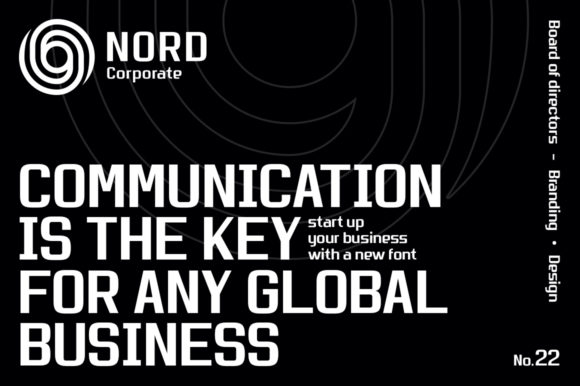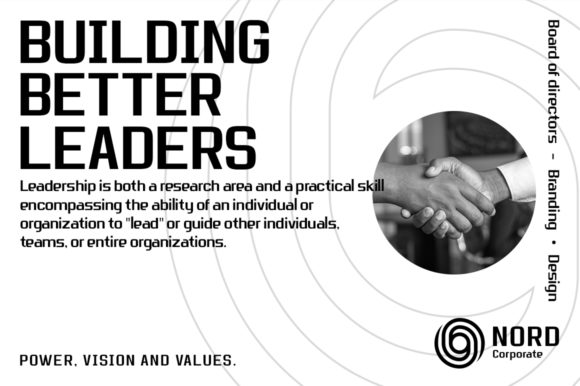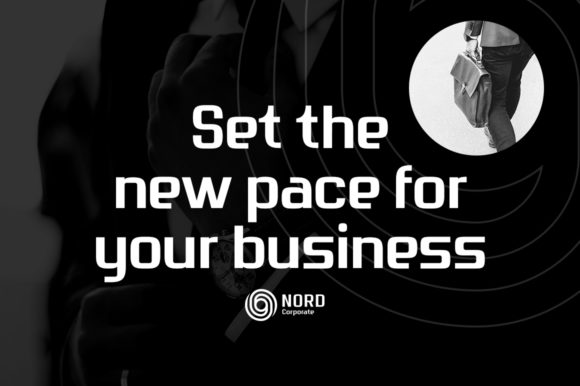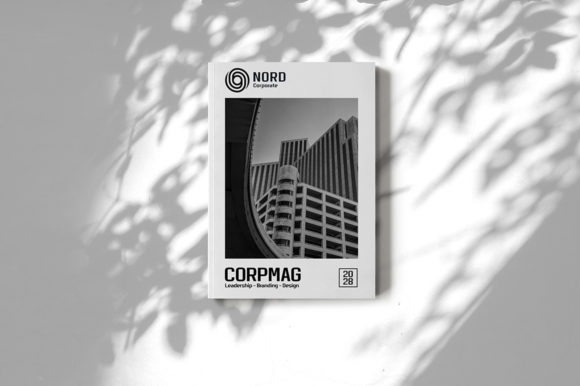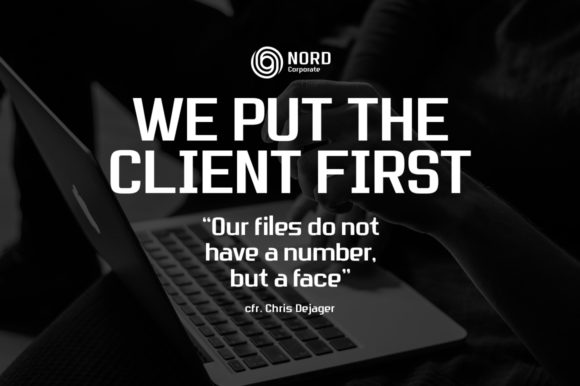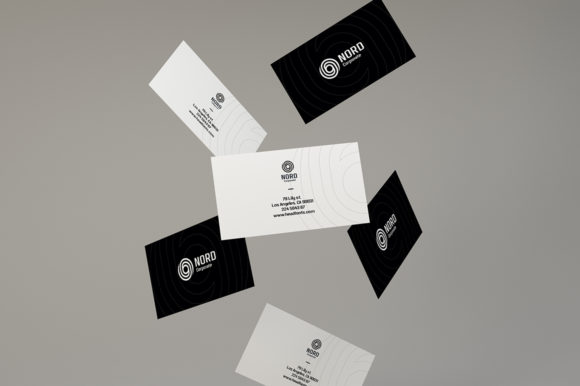
Introduction to Nordhead Font
Nordhead is a modern, clean font that features a corporate vibe, making it perfect for corporate branding, banners, flyers, and much more.
Key Features of Nordhead Font
Why Choose Nordhead Font?
Nordhead Font offers exceptional quality and versatility, making it a valuable addition to your design toolkit. Whether you’re creating for personal projects or commercial use, Nordhead Font delivers professional results.